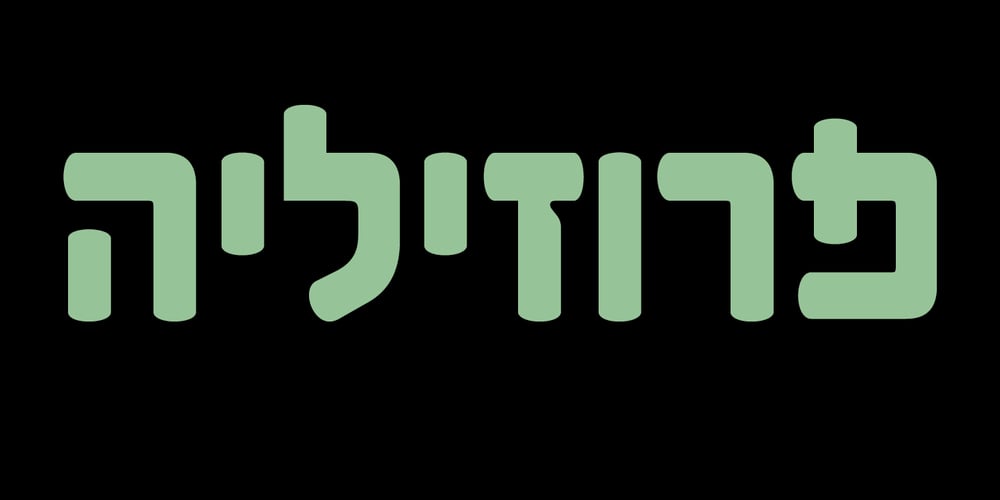
Neshef MF
Neshef MF font
Neshef MF Font Family was designed by Eliyahu Fried and published by Masterfont. Neshef MF contains 1 styles and family package options. The robust impression of these titles will sure leave no dought as to how serious this book is.